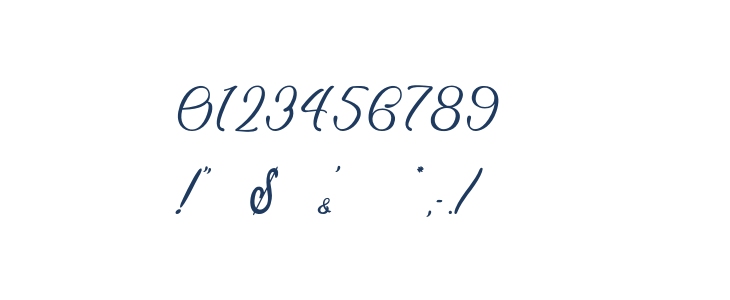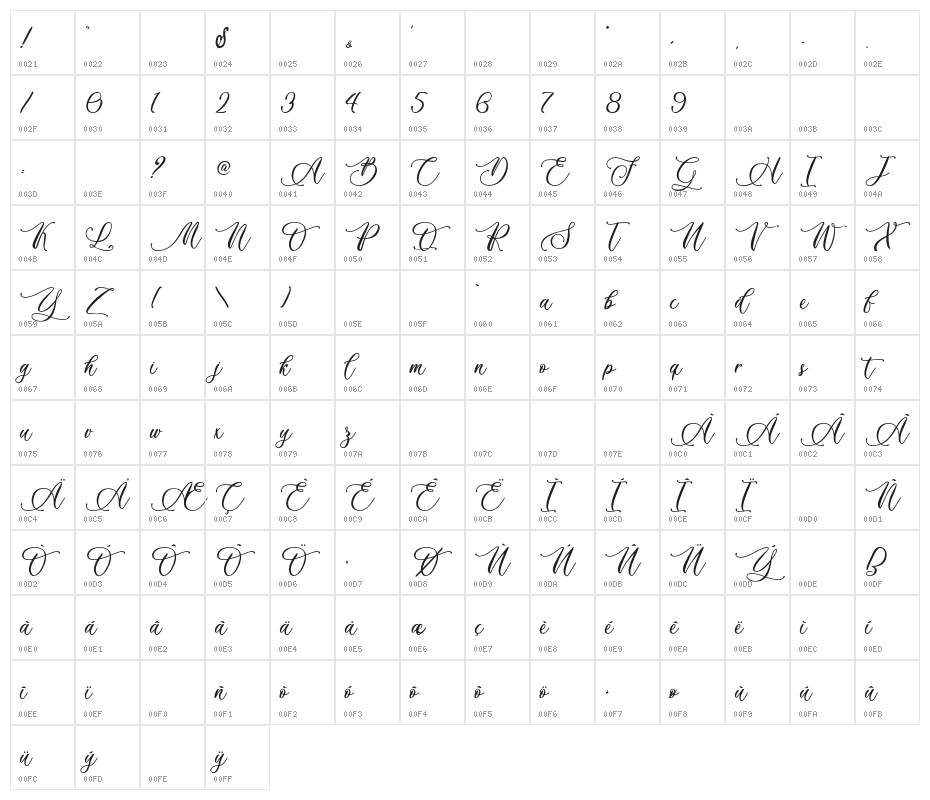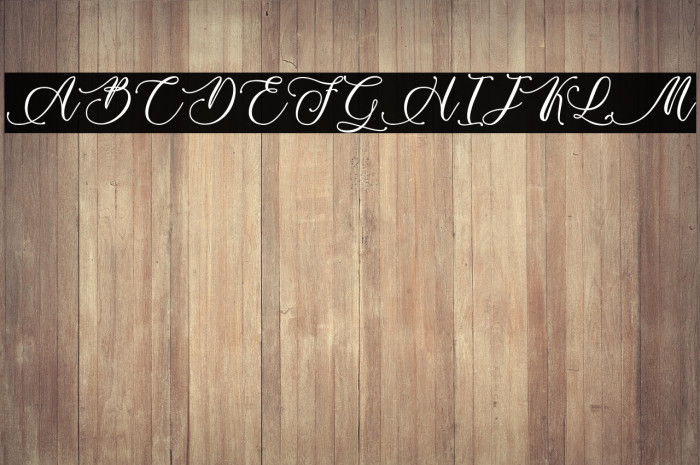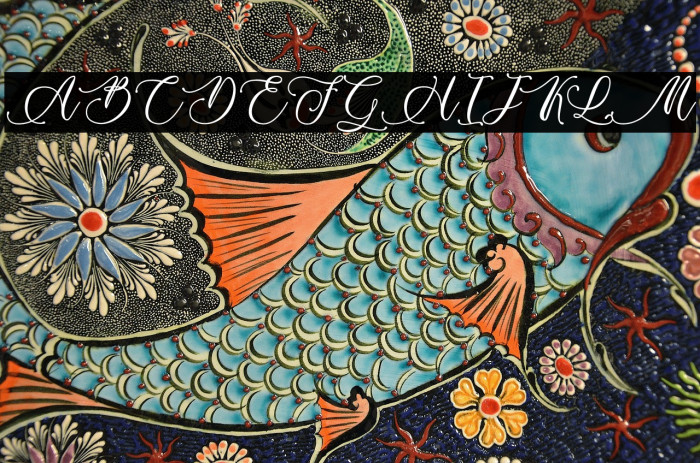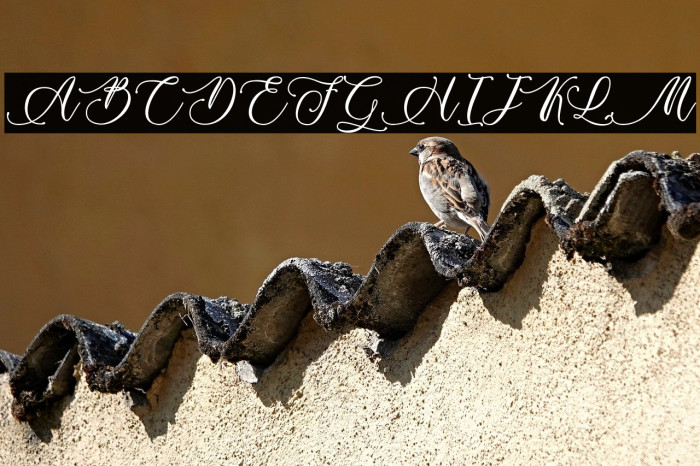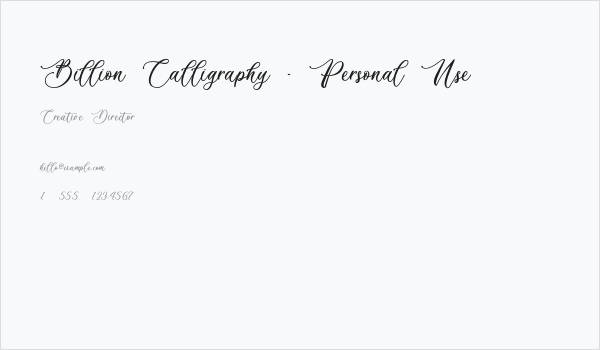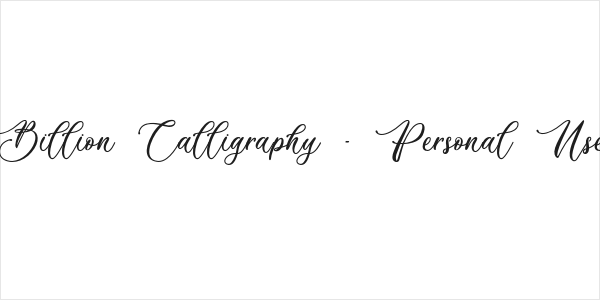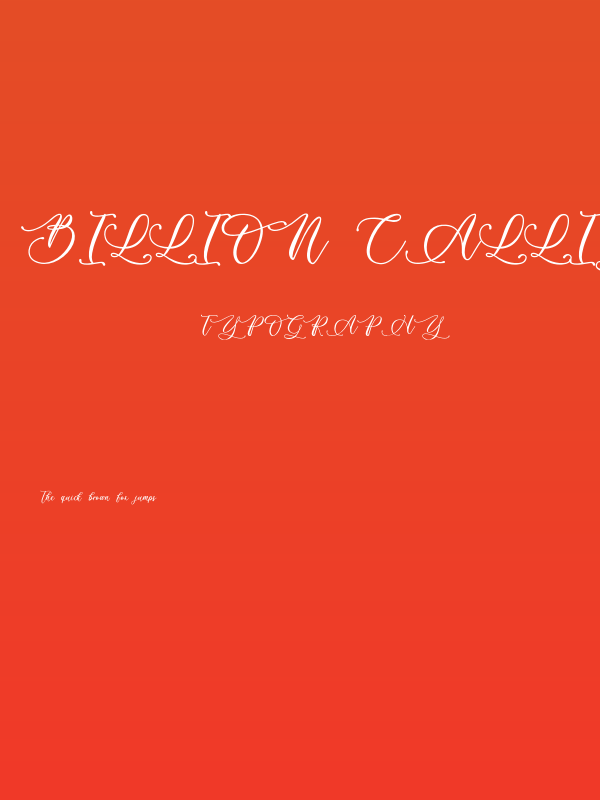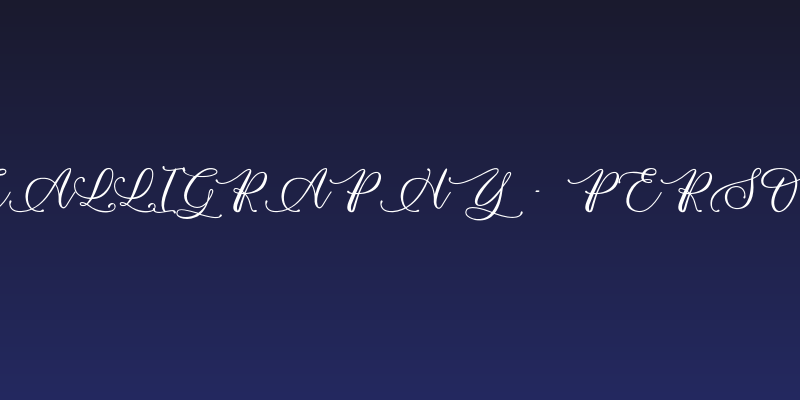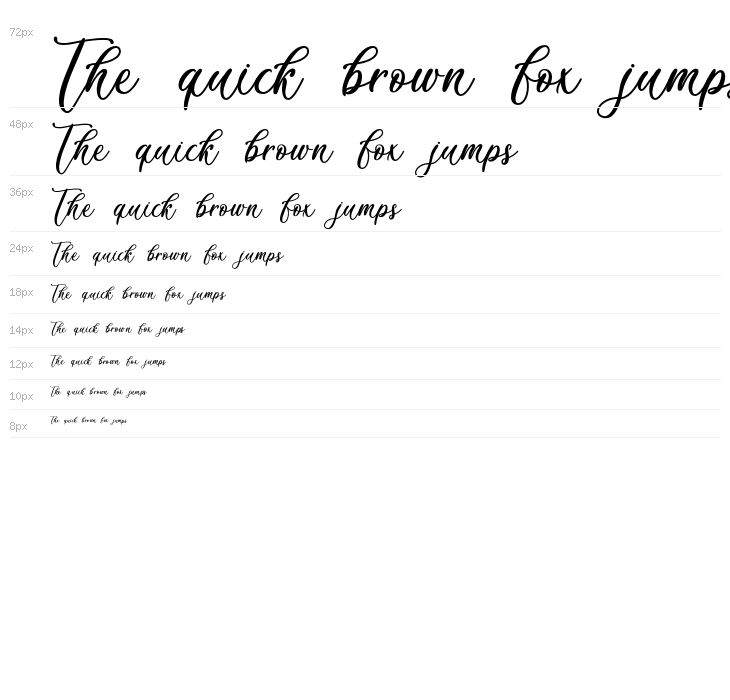
Billion Calligraphy - Personal Use Font
Billion Calligraphy - Personal Use Description
This elegant script font features flowing, cursive letterforms with a classic calligraphic style. The uppercase letters are ornate with delicate loops and flourishes, while the lowercase letters maintain a smooth, connected appearance. The numerals are consistent with the script style, offering a cohesive look across all characters. Special characters are designed to complement the overall aesthetic, making it suitable for decorative purposes. The font's graceful curves and stylish flair make it ideal for projects that require a touch of sophistication and elegance.
| Proposed Projects | Wedding invitations, greeting cards, elegant branding, and decorative signage. |